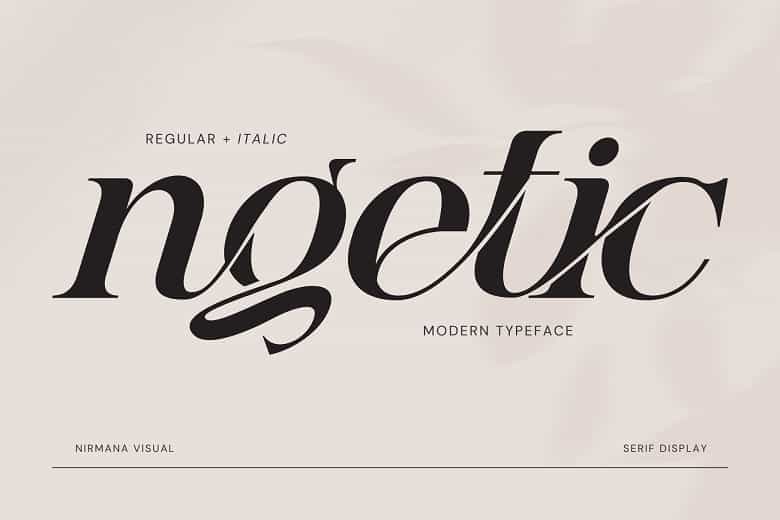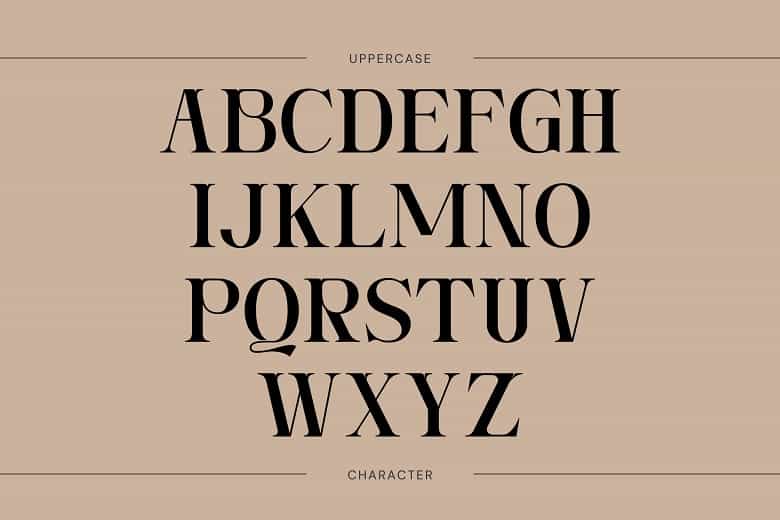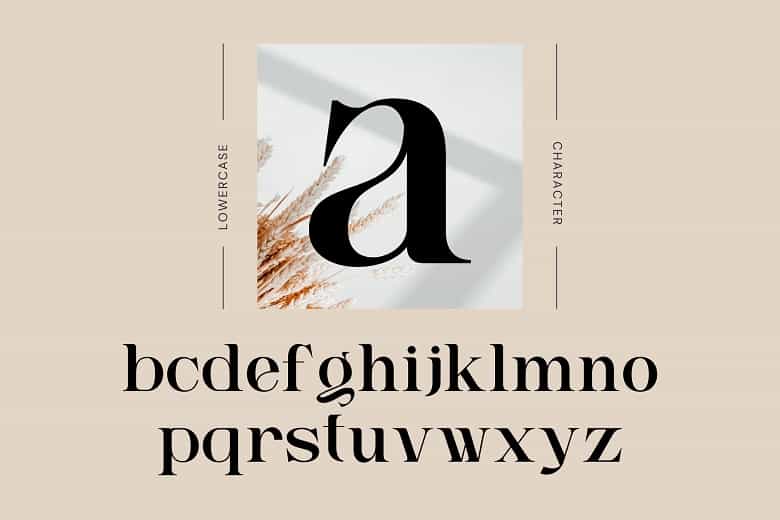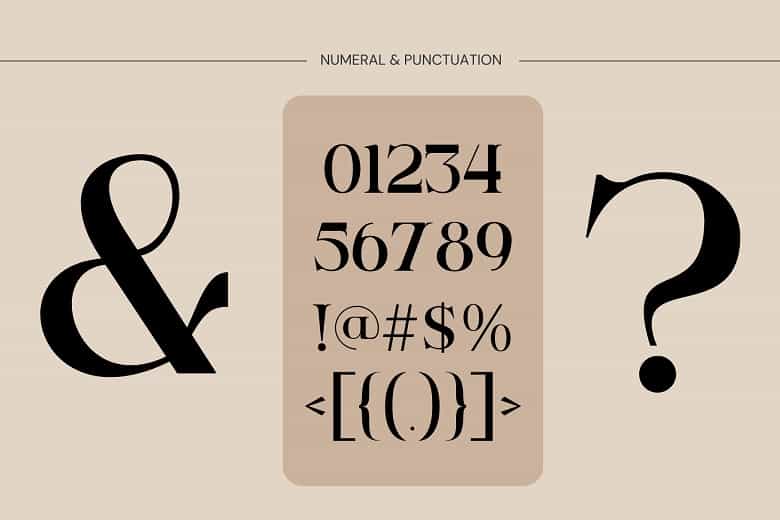
Ngetic is a new modern serif display font. Ngetic provides elegant typography to complement a variety of design works such as logos & branding, social media content, advertisements & product designs.